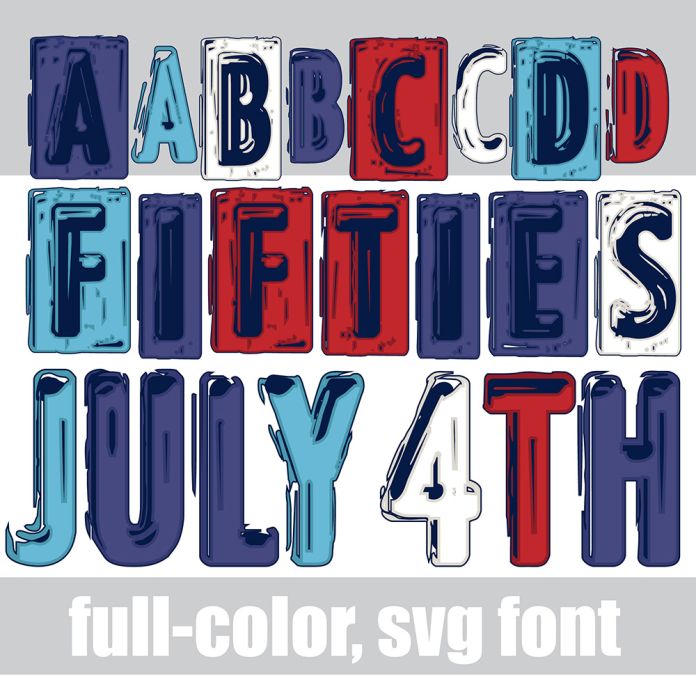
This full-color font looks like grungy, imprinted metal. There is an alt case w/ additional colors you can access through your system or Silhouette's glyph map. This font works best for titles, displays, posters and more. Please note color fonts will show as black in non compatible programs. This font type is compatible with Silhouette Studio.